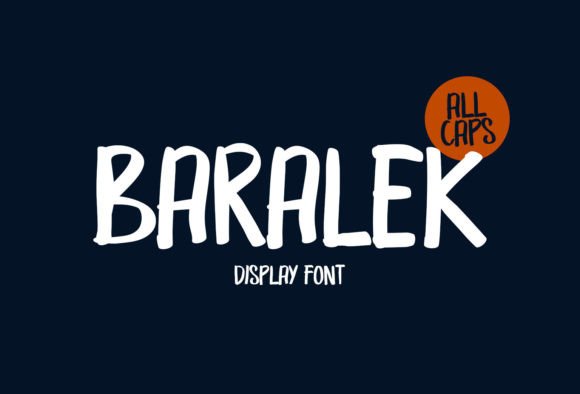
Discover the Charm of Baralek Font: A Sweet and Friendly Handwritten Delight
Are you a designer or crafter on the hunt for a font that adds a touch of warmth and personality to your projects? Look no further than Baralek Font, a sweet and friendly handwritten font that’s sure to capture your heart. With its natural and unique style, Baralek is incredibly versatile and can be used in a wide range of designs, from invitations and branding to packaging and more.
Handwritten fonts have a way of adding a personal touch to any design. They’re often associated with feelings of warmth, comfort, and approachability, making them perfect for projects that require a human touch. Baralek Font is no exception, with its flowing lines and organic feel that make it look like it was written with love.
What Makes Baralek Font So Special?
So, what sets Baralek Font apart from other handwritten fonts on the market? For starters, its unique style is both sweet and friendly, making it perfect for designs that require a touch of whimsy and playfulness. The font’s natural look and feel also make it incredibly legible, even at smaller sizes, which is a must for any designer or crafter.
Another advantage of Baralek Font is its versatility. Whether you’re working on a wedding invitation, a brand identity, or a craft project, this font is sure to fit right in. Its neutral tone and lack of embellishments make it easy to pair with other design elements, allowing you to get creative and add your own personal touch.
The only limit to what you can create with Baralek Font is your imagination! This font can be used in a wide range of projects, including:
• Branding and packaging design
• Craft projects, such as knitting or sewing patterns
• Social media graphics and blog posts
• Signage and display graphics
Whether you’re a seasoned designer or a crafty DIY enthusiast, Baralek Font is sure to inspire your creativity and help you bring your projects to life.
Tips for Using Baralek Font
To get the most out of Baralek Font, here are a few tips to keep in mind:
• Experiment with different sizes and colors to find the perfect combination for your project
• Pair Baralek Font with other design elements, such as photos or illustrations, to add visual interest
• Use Baralek Font to create a cohesive brand identity or visual style
• Don’t be afraid to get creative and try new things – Baralek Font is a versatile tool that’s meant to be experimented with!
In conclusion, Baralek Font is a sweet and friendly handwritten font that’s perfect for designers and crafters looking to add a touch of warmth and personality to their projects. With its natural and unique style, Baralek is incredibly versatile and can be used in a wide range of designs. So why wait? Download Baralek Font today and start bringing your creative projects to life!